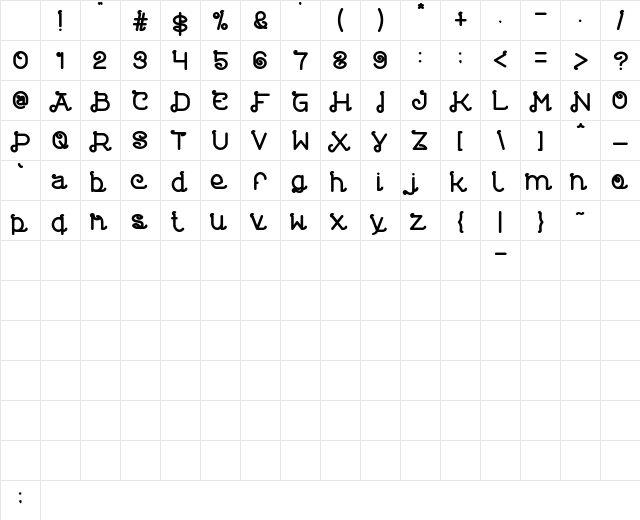
Complete Painter pointer Bold glyph index. Displaying only characters natively supported by Painter pointer Bold font.
Painter pointer is a composed and adaptable typeface that performs quietly and consistently across a wide range of design contexts. Its bold stroke weight gives it real presence on the page.